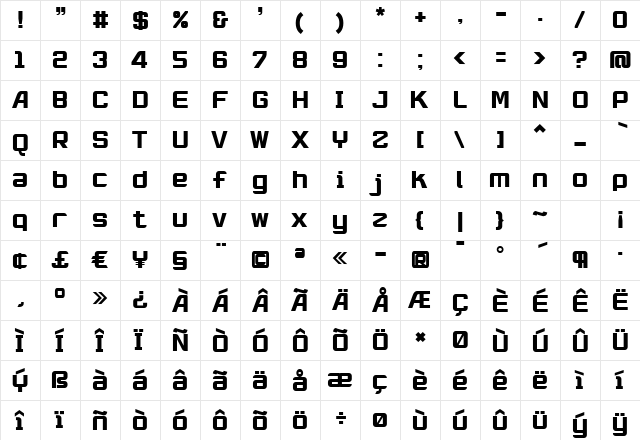
RobustikBold Regular
Design Context for RobustikBold Typeface
RobustikBold offers clean, dependable letterforms without strong stylistic allegiance, making it a practical choice for designers who need flexibility. The heavy weight commands attention and anchors typographic hierarchies.